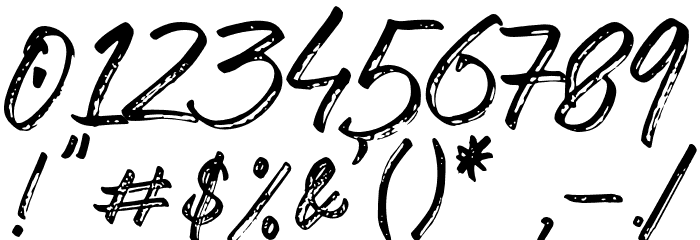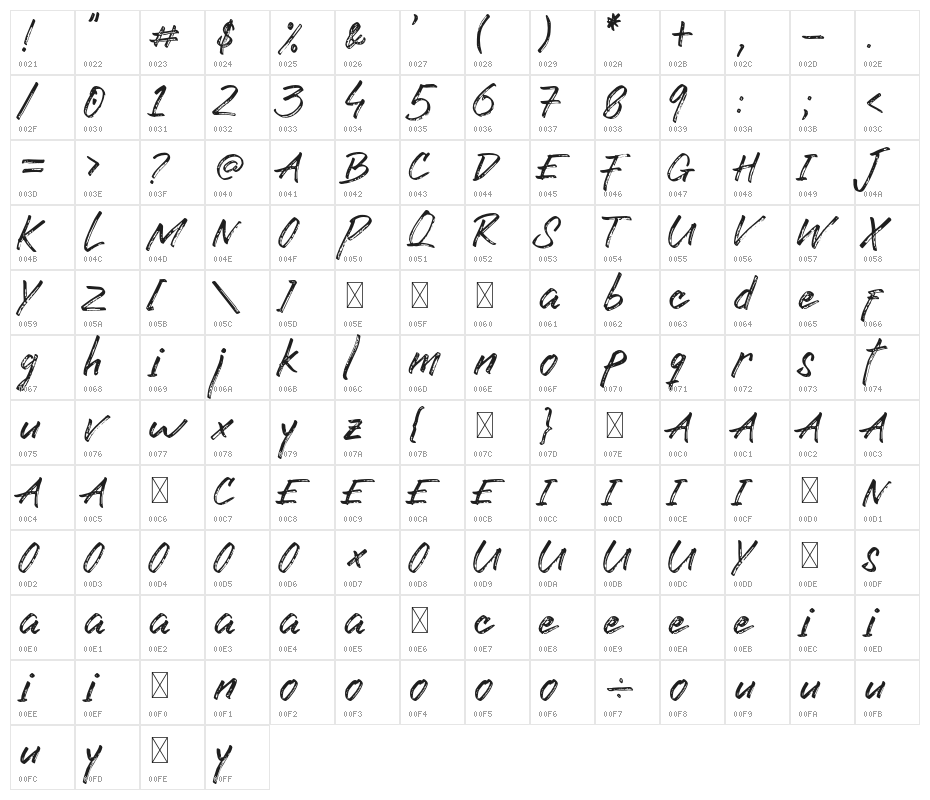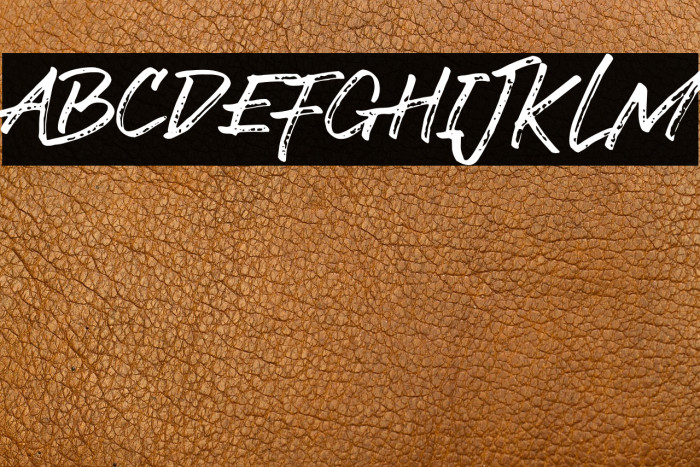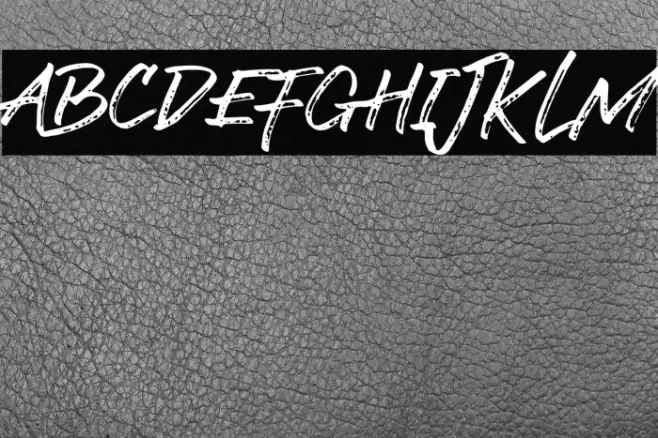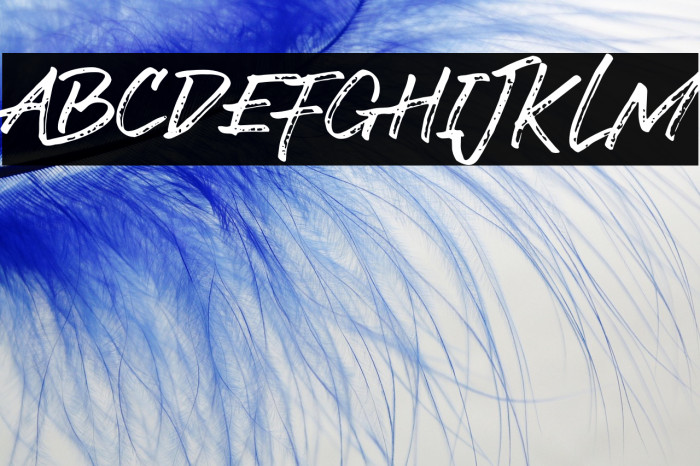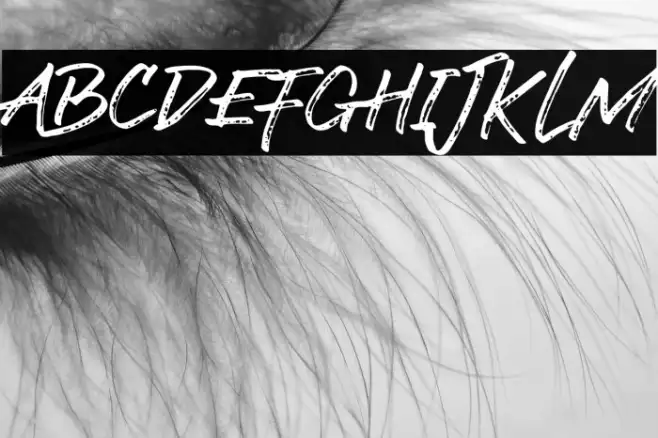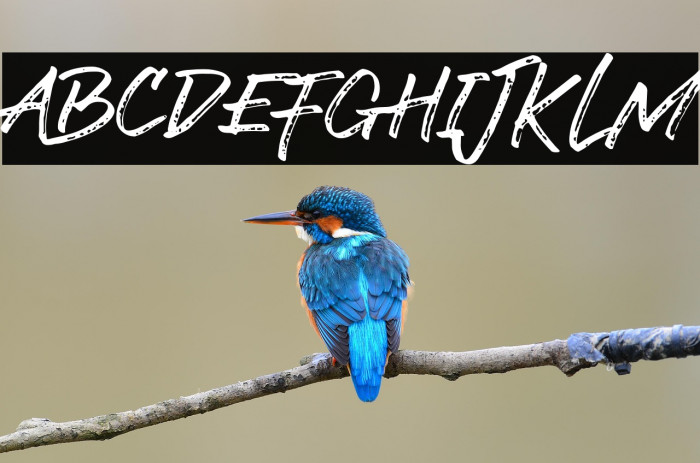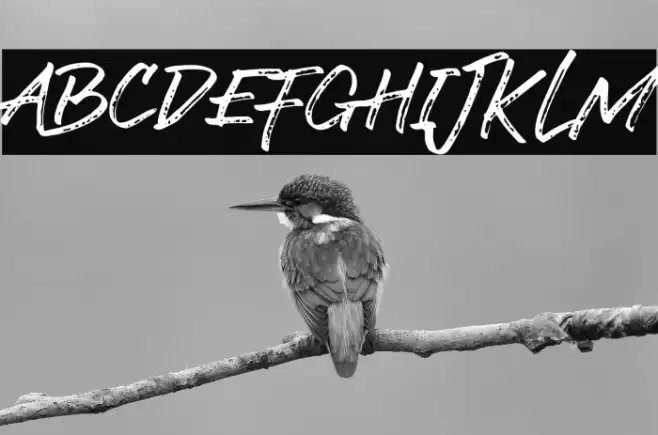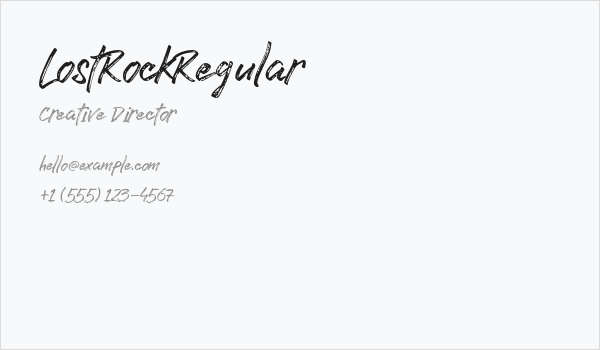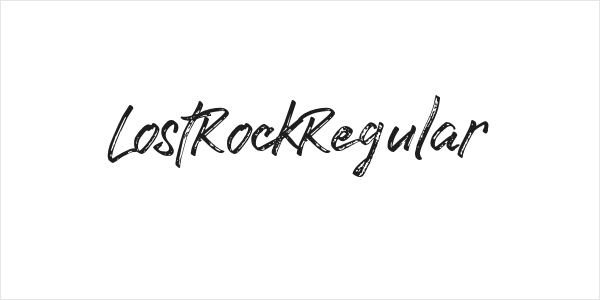
LostRockRegular Font
LostRockRegular Description
This font exudes a rugged, hand-drawn aesthetic with a distinctively textured appearance. The letters are crafted with a brush-like stroke, giving them an energetic and dynamic feel. The uppercase and lowercase characters maintain a consistent style, with irregular edges and a slightly distressed look that adds to its charm. Numbers and special characters follow the same design, ensuring a cohesive visual experience. The font's organic flow and artistic flair make it stand out, perfect for projects that require a touch of creativity and individuality.
Use CaseLogos, Posters, Artistic projects
Proposed ProjectsIdeal for artistic projects, branding, posters, and any design needing a creative, handmade touch.